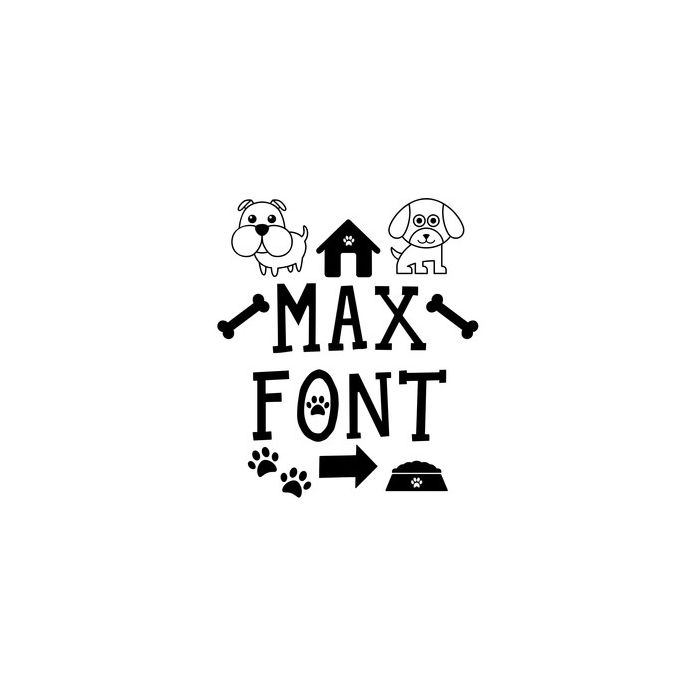
This whimsical font features extra dog themed characters found in these keys: []\|{}<>=. For ideas and inspiration visit www.loriwhitlock.com and www.facebook.com/lori.whitlock.studio. For Lori's video tutorials visit www.youtube.com/loriwhitlock. For a full tutorials list visit www.loriwhitlock.com/blog/tutorials.